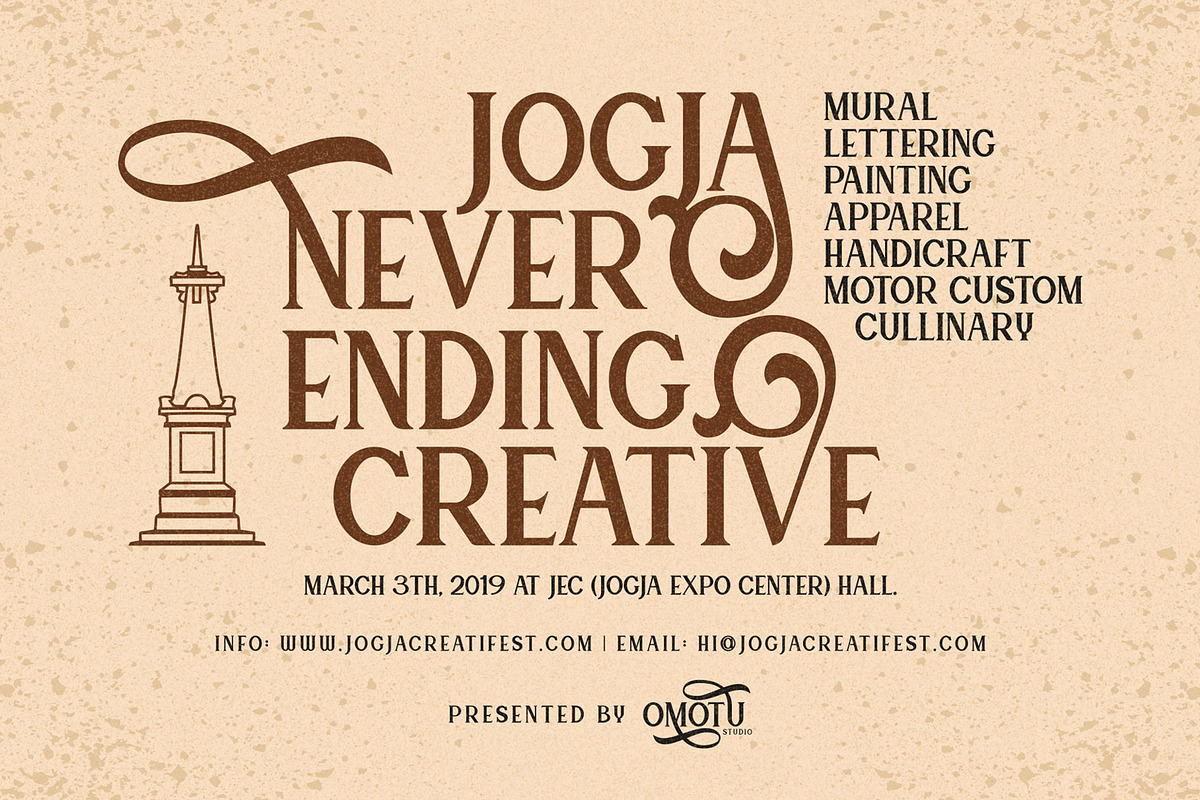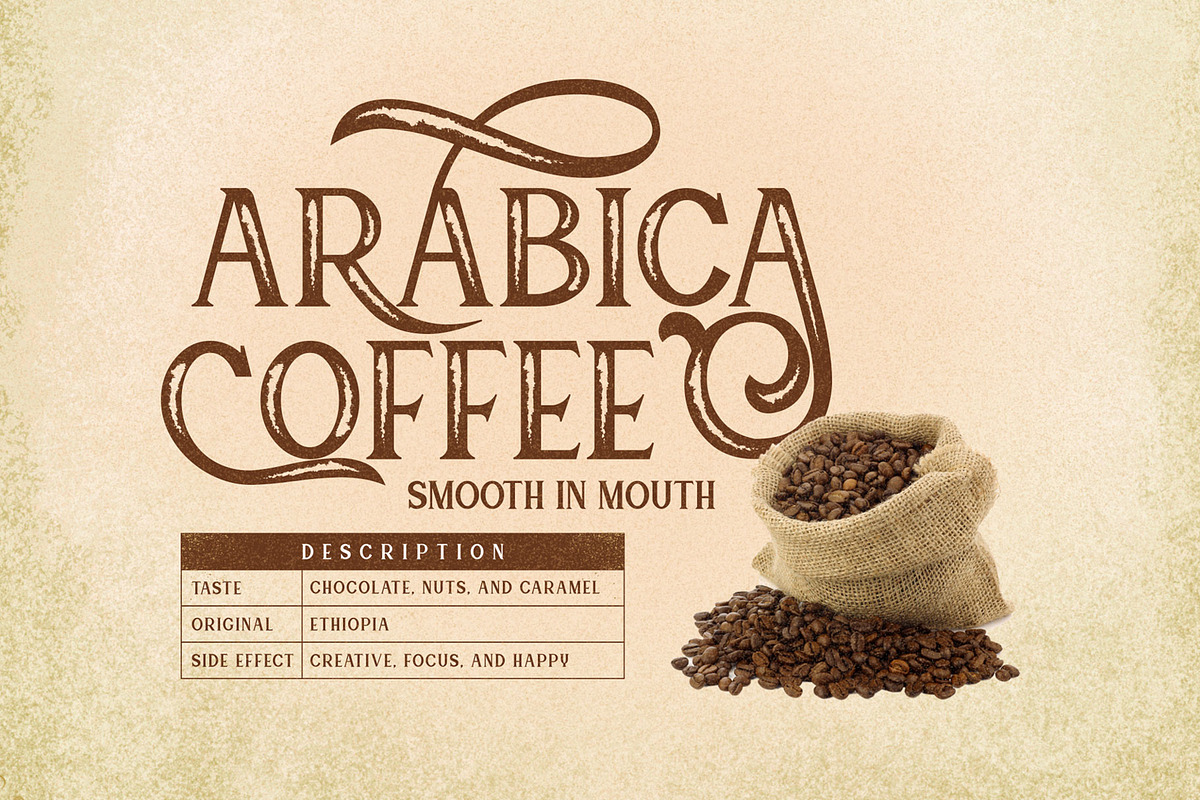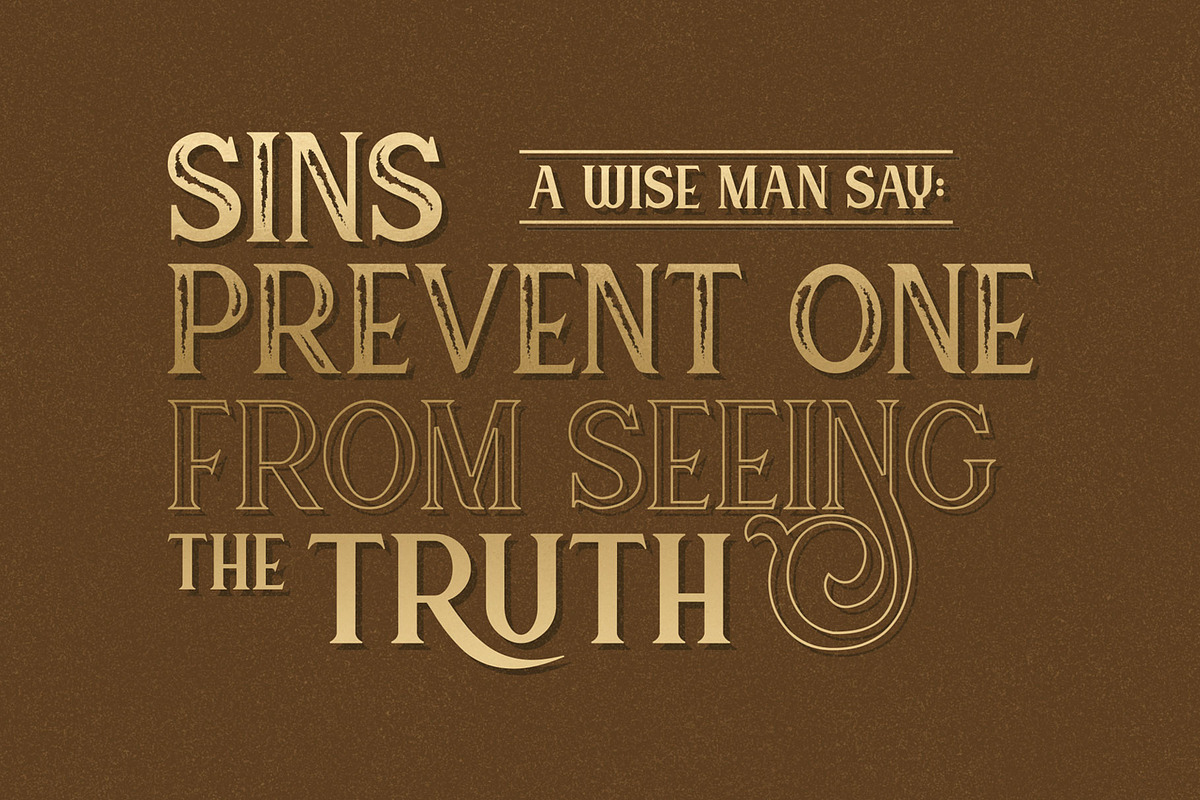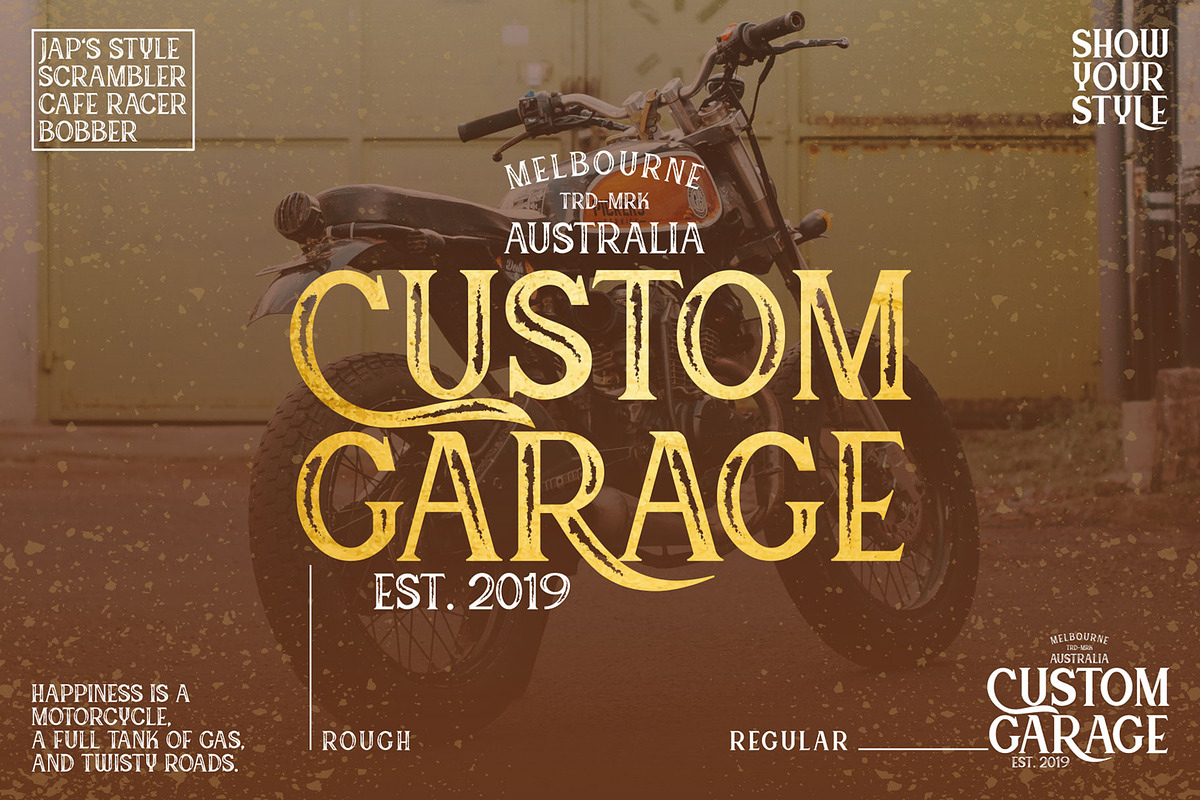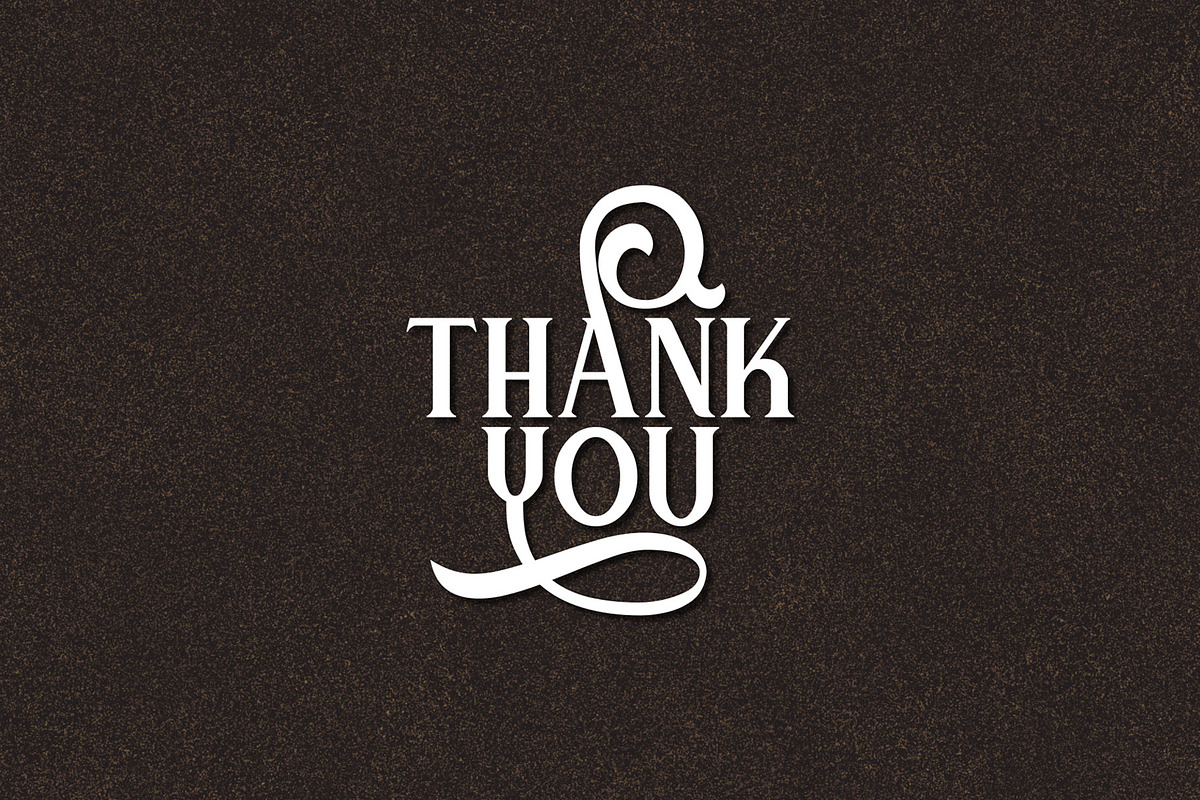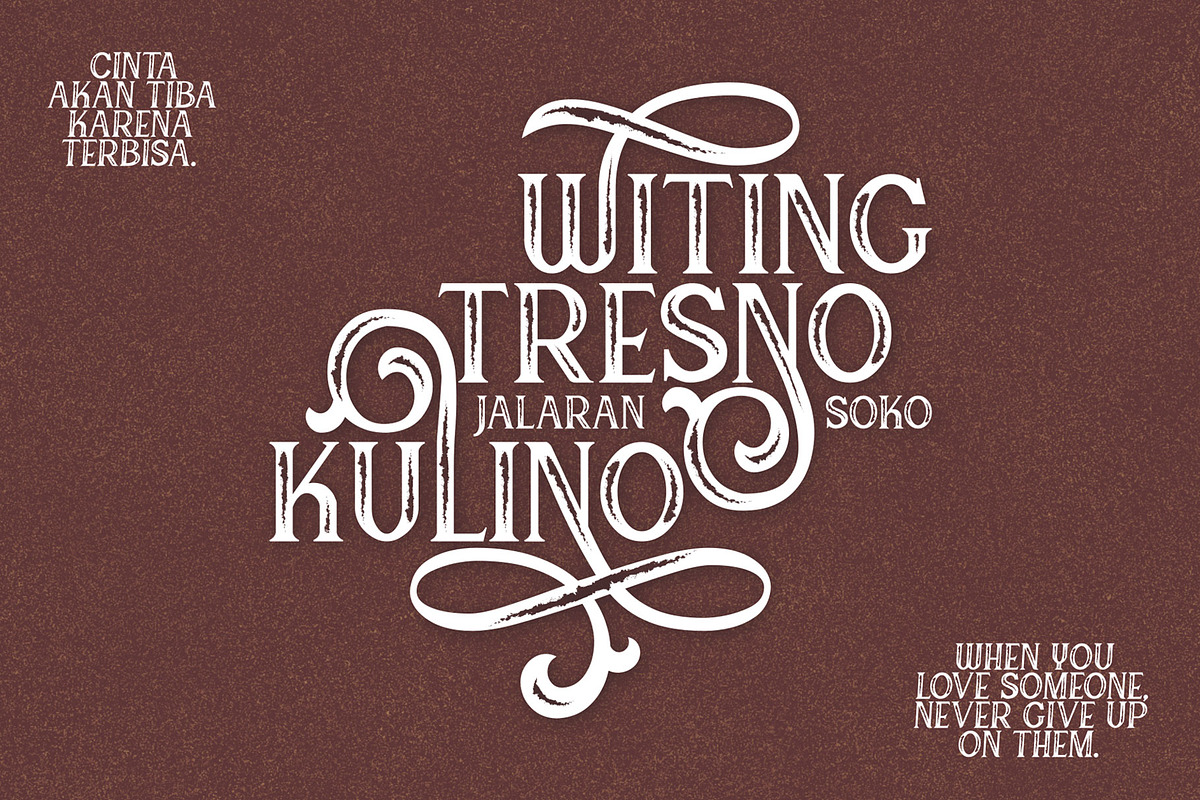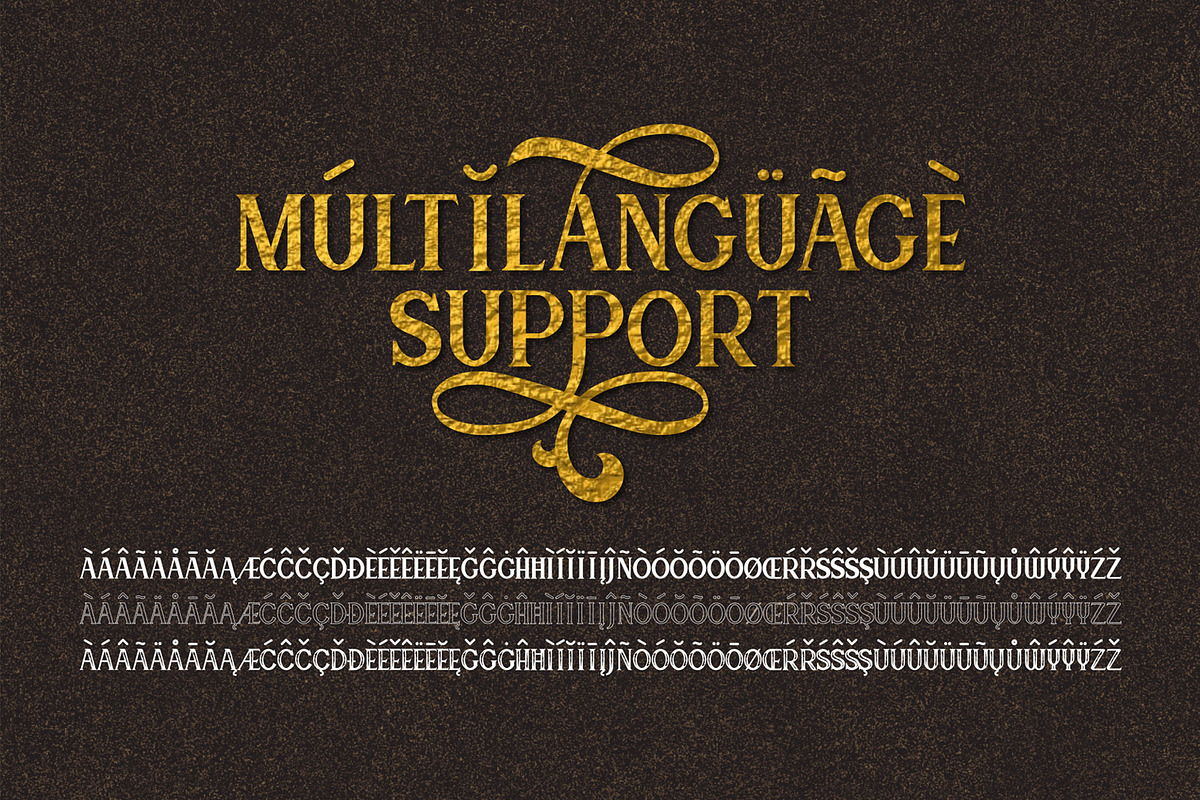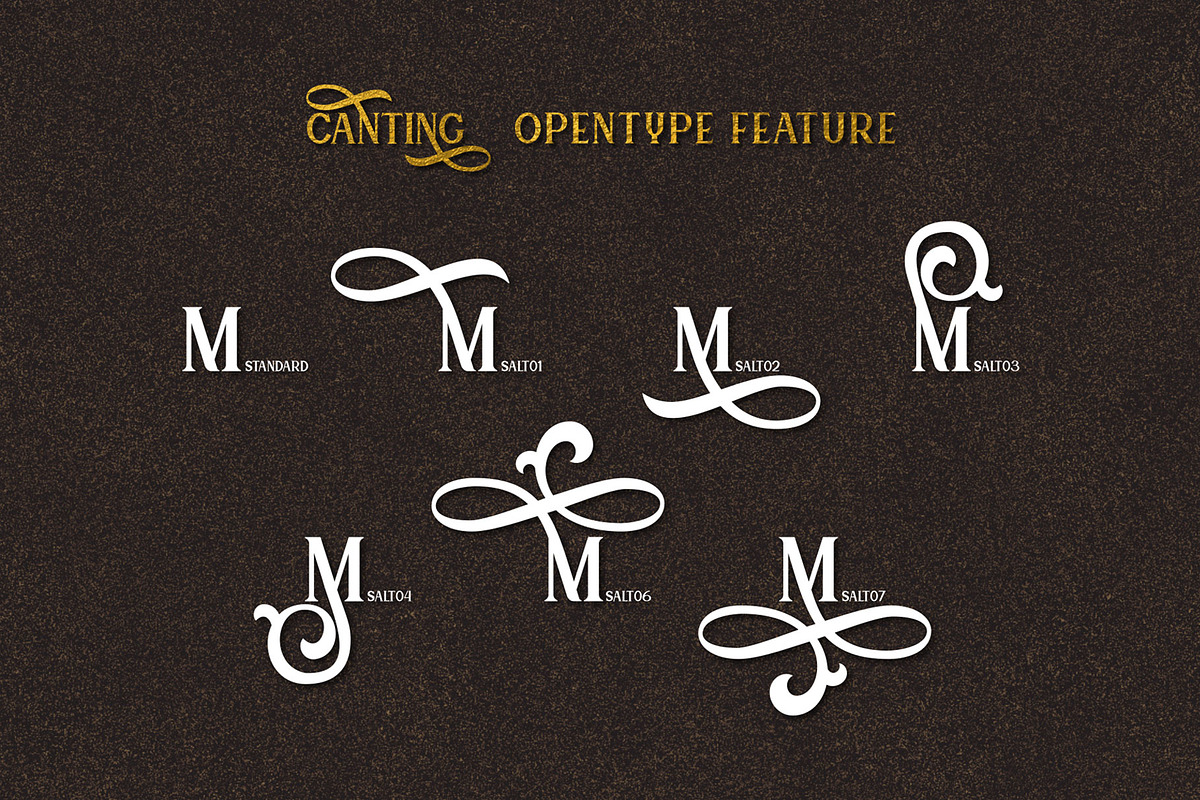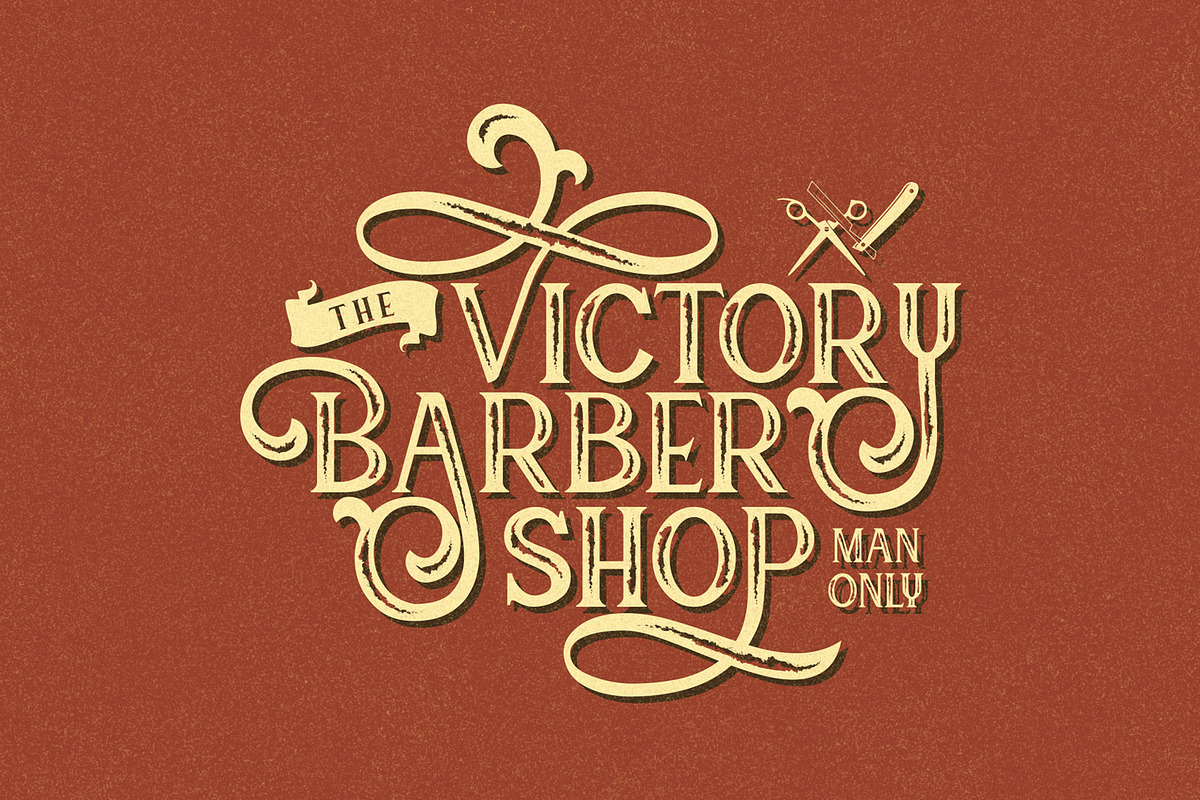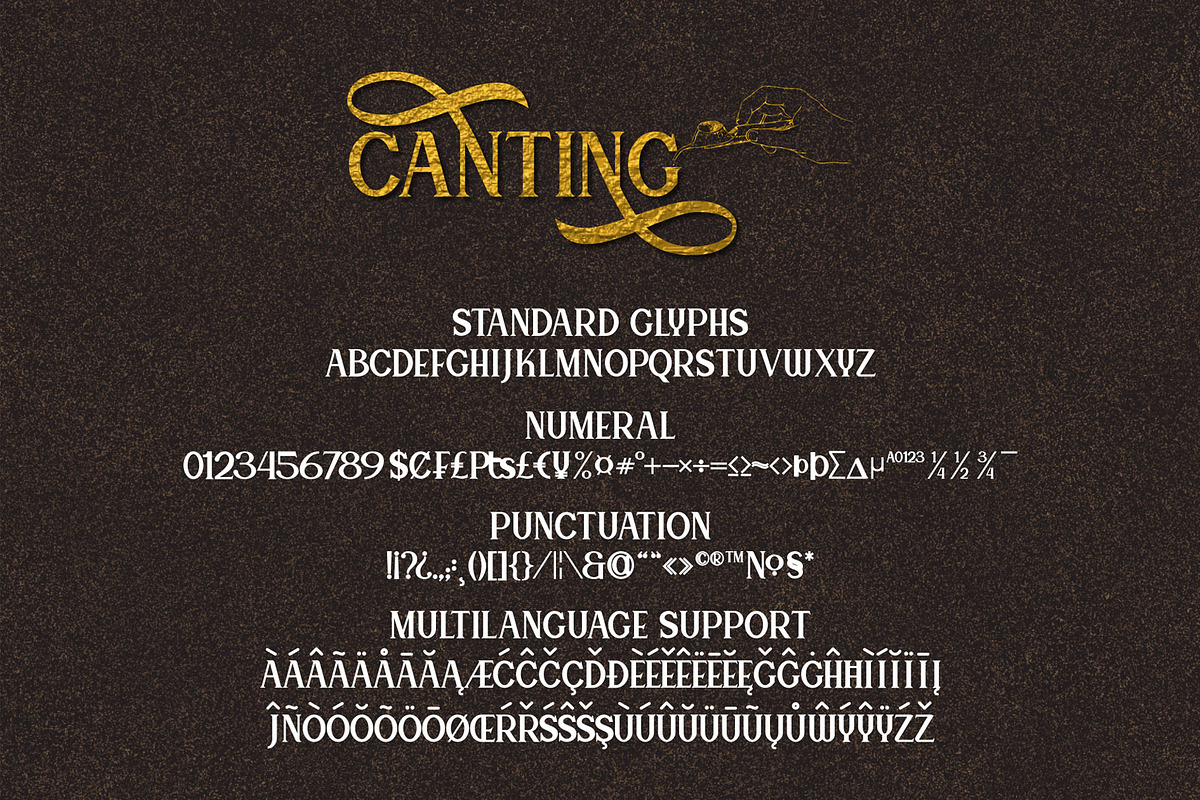
Canting
Canting is a decorative serif font. It perfectly represents vintage esthetics in a modern and minimalist way. The font includes special uppercase letters and alternate characters. The font is perfect for elegant logo design, product packaging, quotes, poster design, brand identity, lettering, and many more.
- Uppercase characters with 3 styles (regular, outline, and rustic)
- Supports international languages
- Opentype features: stylistic alternates with beautiful swashes